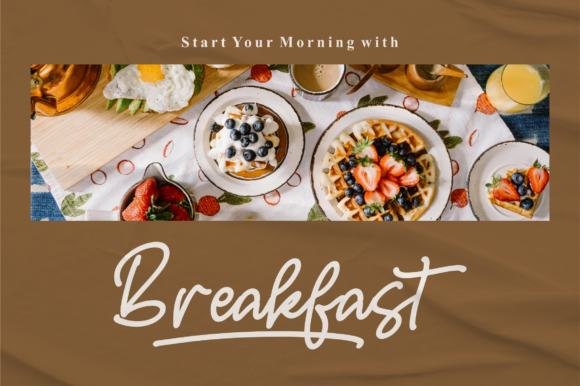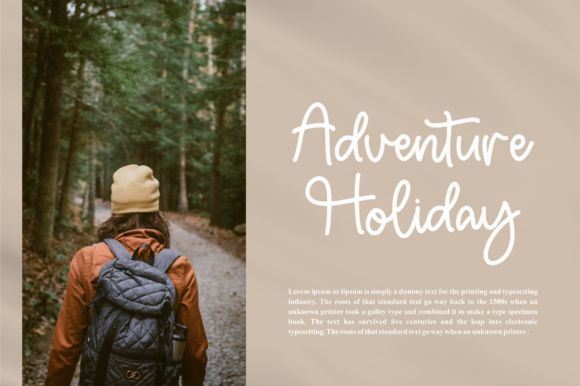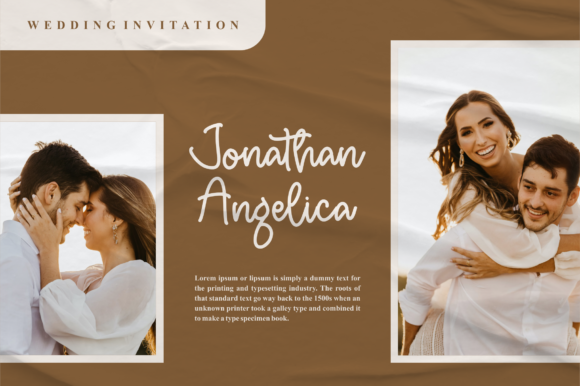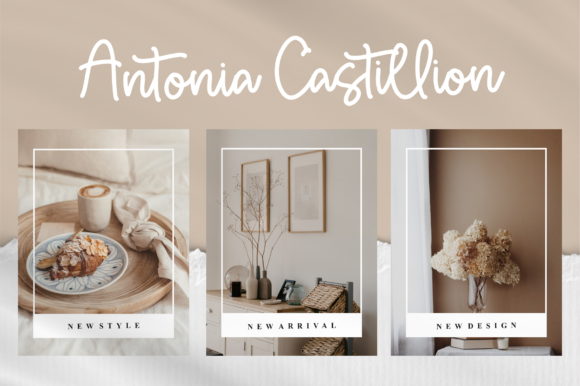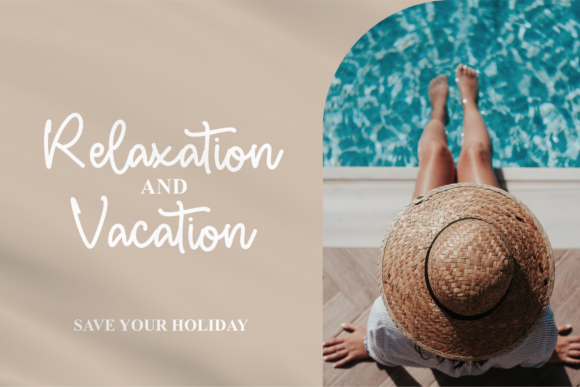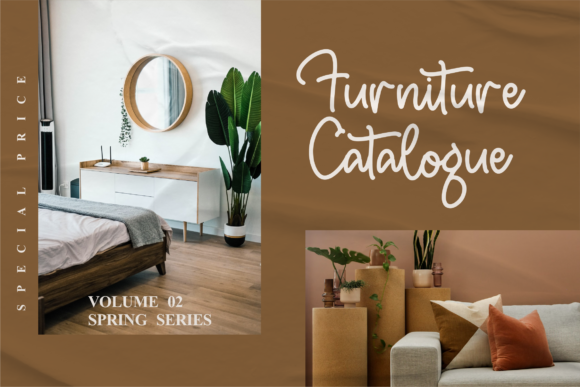
Introducing Haydenz Font: The Ultimate Elegant Script for Designers and Crafters
In the world of typography, a font can make or break a design project. For designers and crafters looking for that perfect elegant script to elevate their work, Haydenz Font is an exceptional choice. This beautifully crafted font is not only fashionable and delicate but also versatile, making it suitable for a wide range of projects. In this article, we’ll dive into the features and benefits of Haydenz Font, exploring how it can enhance your designs and streamline your creative process.
Aesthetic Appeal of Haydenz Font
Haydenz Font boasts a stylish and refined script style that can instantly add a touch of sophistication to any project. Its elegant strokes and beautiful swashes make it perfect for designs that require a high level of detail and aesthetic appeal. Whether you’re working on a logo, branding project, or a special event, Haydenz Font ensures that your work stands out with its unique and captivating charm.
Versatility in Design Projects
One of the key advantages of Haydenz Font is its versatility. This font is suitable for a myriad of design projects, including:
- Logos: Create memorable and impactful logos that reflect your brand’s personality.
- Branding Projects: Consistency in branding is crucial, and Haydenz Font helps you achieve a cohesive look across all your branding materials.
- Labels: Add a professional and elegant touch to your product labels.
- Photography: Use Haydenz Font for watermarks or photo captions to add an artistic flair.
- Special Events: Make your event invitations, programs, or decorations stand out with this beautiful script font.
Haydenz Font is PUA (Private Use Area) encoded, which means you can easily access all the glyphs and swashes. This feature is particularly beneficial for designers who want to experiment with different styles and variations without the hassle of complicated font management. With Haydenz Font, you have the flexibility to customize your text, making your designs more dynamic and engaging.
Haydenz Font offers several benefits that make it a go-to choice for designers and crafters:
- Ease of Use: Thanks to its PUA encoding, you can access a wide range of glyphs and swashes, allowing for greater creative freedom.
- High Versatility: Its suitability for various projects means you can use Haydenz Font across different design tasks, making it a valuable addition to your font library.
- Elegant Aesthetic: The font’s fashionable and delicate style ensures your designs look professional and visually appealing.
- Time-Saving: With Haydenz Font, you can achieve high-quality design results more efficiently, saving you time and effort.
Tips for Maximizing Haydenz Font’s Potential
To get the most out of Haydenz Font, consider the following tips:
- Experiment with Swashes: Don’t be afraid to try out different swashes and glyphs to find the perfect combination for your design.
- Mix and Match: Combine Haydenz Font with other fonts to create a unique and visually appealing contrast.
- Adjust Font Size and Weight: Play around with different font sizes and weights to add depth and hierarchy to your design.
Haydenz Font is a beautifully designed script font that offers elegance, versatility, and ease of use. Whether you’re a designer working on a branding project or a crafter looking for the perfect font for your special event, Haydenz Font is an excellent choice. Its PUA encoding, stylish aesthetic, and wide range of applications make it a valuable asset for any creative project. By incorporating Haydenz Font into your design toolkit, you’ll be able to create stunning, professional-quality designs with ease.